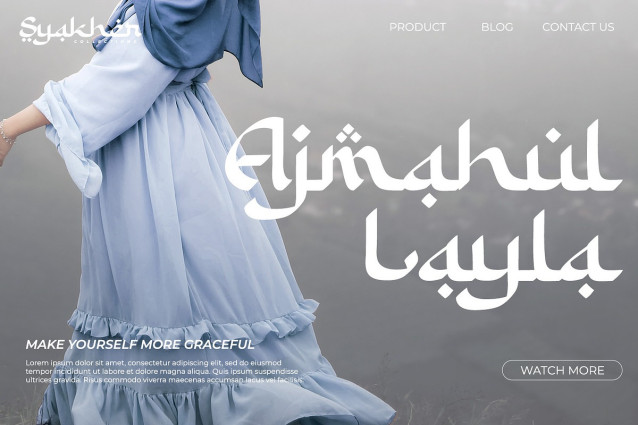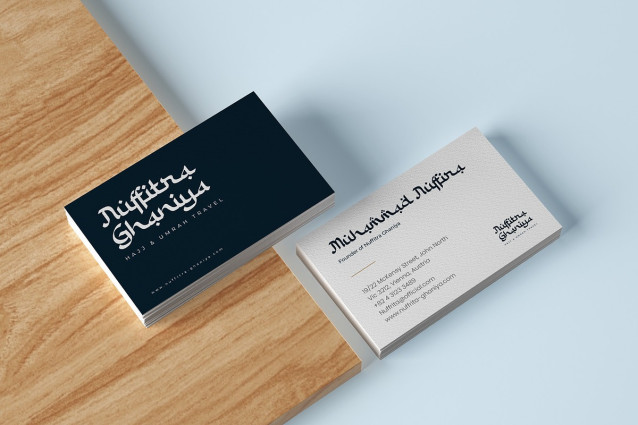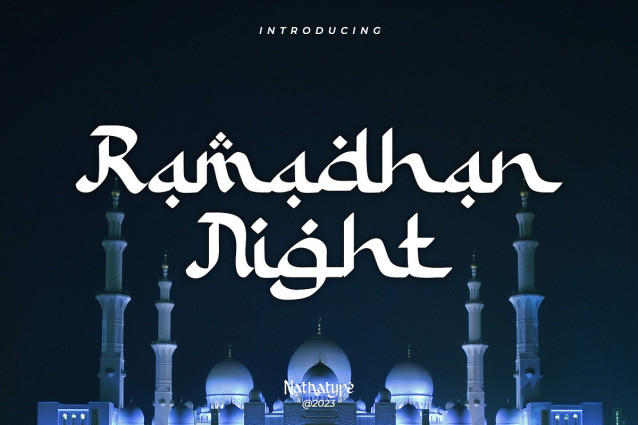
Ramadhan Night Font
Ramadhan Night Font a captivating display font that effortlessly captures the essence of Arabic letters. Ramadhan Night pays homage to the flowing beauty of Arabic script, where each letter gracefully connects to the next. It brings the charm of this age-old tradition to your designs. This font maintains low contrast between strokes and curves, ensuring clarity and easy reading in various contexts. In addition, enjoy the features here.